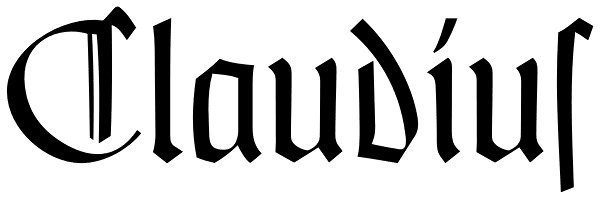
Claudius
A blackletter font tending towards the gothic which was released by Klingspor, Offenbach am Main, in 1937. Claudius can be used for clerical as well as for secular purposes and shows a strong character of its own. The original esthetic atrocities of...